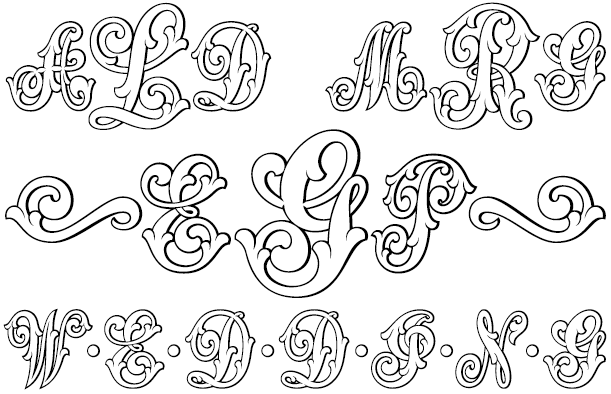
MFC Aldercott Monogram
About MFC Aldercott Monogram
The source of inspiration for Aldercott Monogram is a decorative alphabet designed in 1901 by Marcus Goldsmith, an inventor of elegant accessories of personal nature. Originally developed to be used as individual letters or for advertising purposes, this…